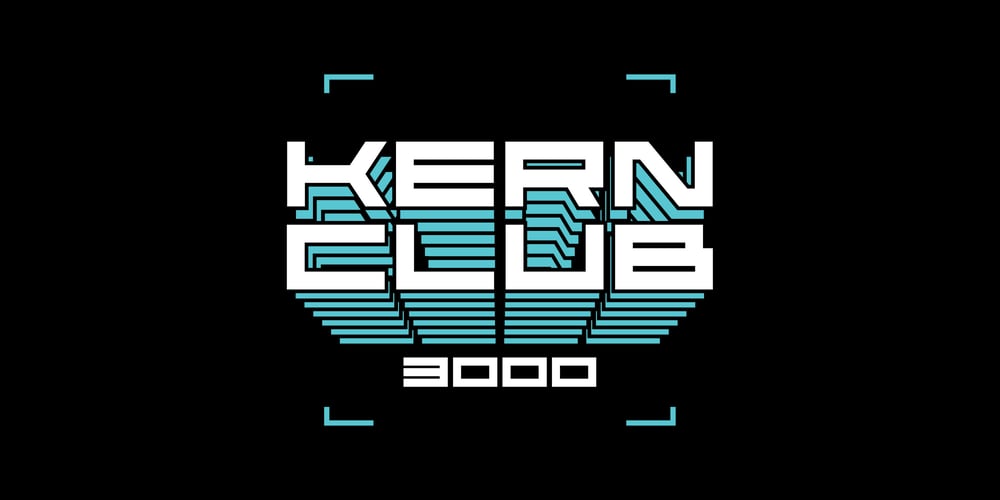
Kerninator
Kerninator font
Kerninator Font Family was designed by Dustin Noden and published by Kern Club. Kerninator contains 1 styles and family package options. Futuristic display font inspired by our favorite childhood film. Includes thick and thin version Thick Uppercase Character Set A-Z Thin Lowercase Character Set A-Z Numerals & Simple Punctuation OTF file format